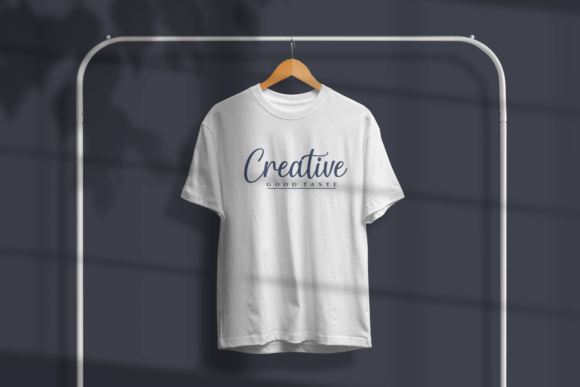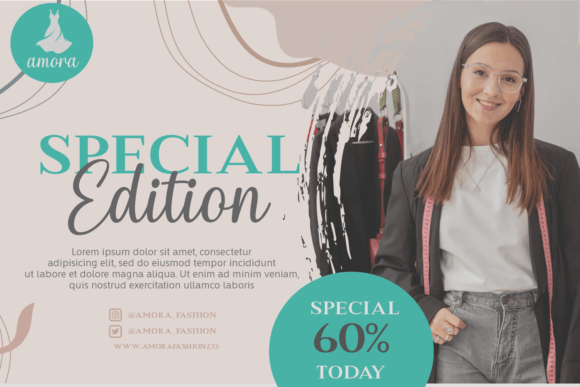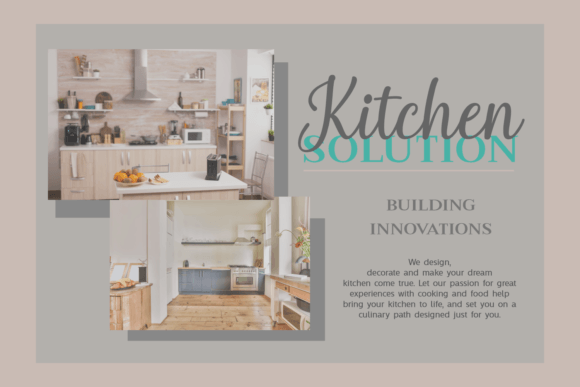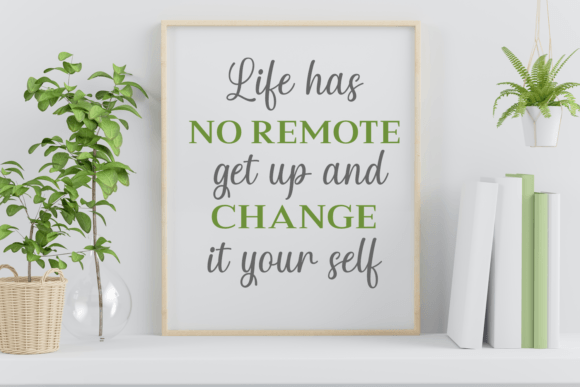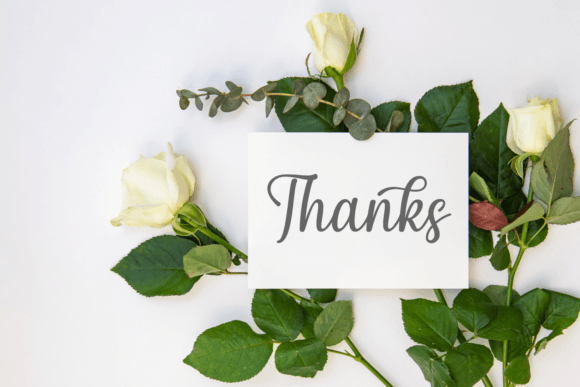
Introduction to Elsha Font
Elsha is a stunning and modern script font.
Add an elegant and sophisticated touch to your typography with this lovely typeface It looks gorgeous on invitations, greeting cards, branding projects, logos, labels, and many more.
Key Features of Elsha Font
Why Choose Elsha Font?
Elsha Font offers exceptional quality and versatility, making it a valuable addition to your design toolkit. Whether you’re creating for personal projects or commercial use, Elsha Font delivers professional results.